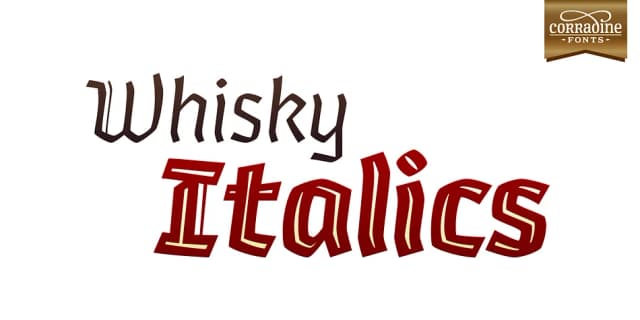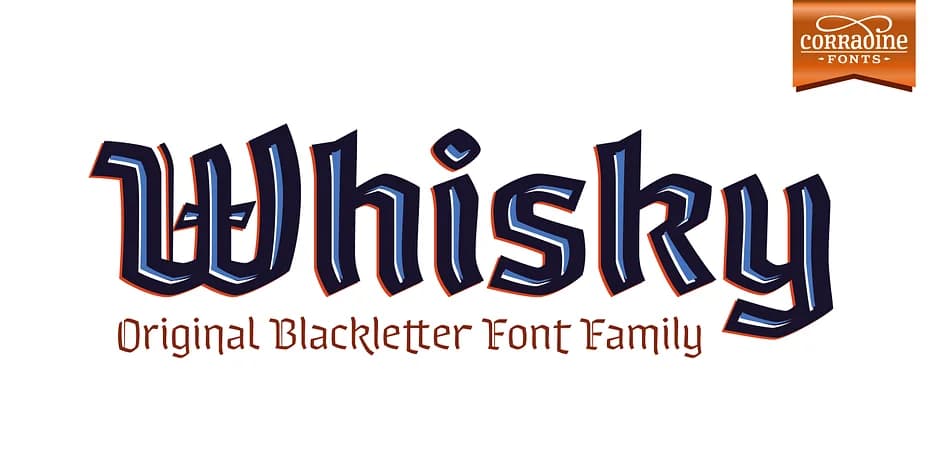
Whisky strikes that bold, slightly rebellious chord you hear in vintage speakeasy signage and hand-inked lettering from decades past. Created by Corradine Fonts, this blackletter family sidesteps formal stuffiness by feeling genuinely contemporary rather than historically rigid, a feat it achieves through its variable stroke weights and thoughtfully angled line endings that infuse every word with kinetic, hand-drawn energy.
The seven weights work in two distinct versions (fill and inline), giving you the flexibility to layer them together for dimensional depth and visual sophistication. This versatility shines on craft brewery labels, vintage bar menu design, tattoo flash compositions, wedding invitation suites, boutique packaging, and other specialty retail applications where visual personality matters more than formal restraint. Beyond the base weights, the OpenType feature set unlocks an array of swashes and alternate character endings, opening up real possibilities for compositions that feel organic and intentional rather than mechanically produced or cold.
- Ornate, Gothic
- Logos, Certificates
- medieval themes, band merch, and tattoo lettering
- a clean sans-serif for body text
Whisky Font is a blackletter font that shines as a display or heading face. Pair it with a clean serif or sans-serif font for body text β the contrast creates a clear hierarchy while the two styles stay balanced and easy to read.